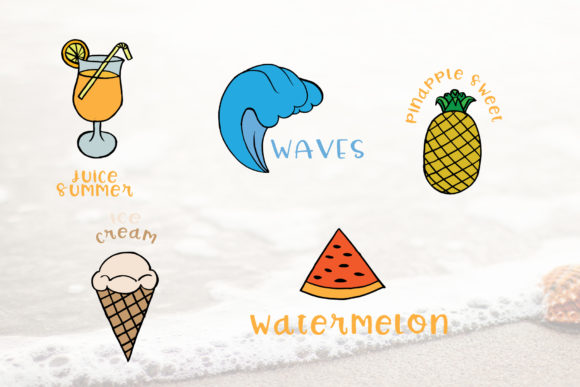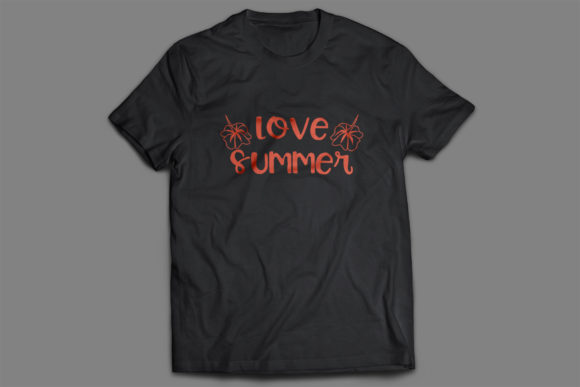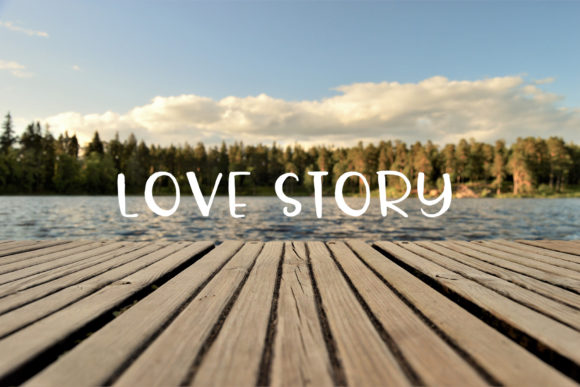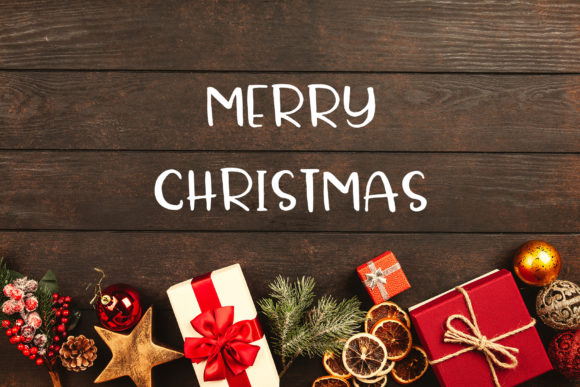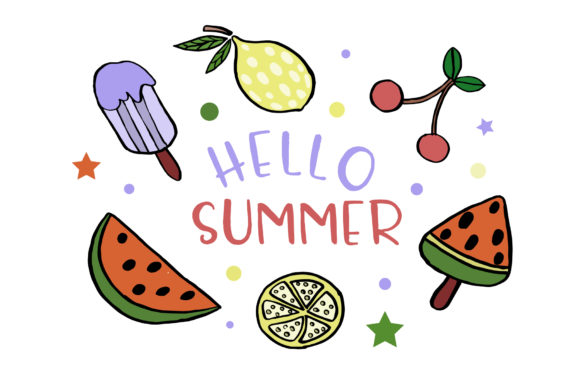
The Crying Font: A Sweet and Friendly Handwritten Delight
I still remember the design project that led me to discover the Crying Font. I was working on a whimsical children’s book, and my client requested a font that was both playful and elegant. As I scoured the internet for the perfect match, I stumbled upon this beautiful, handwritten font that instantly captured my heart. Its natural and unique style made it incredibly fitting for a wide range of designs, from crafty projects to sophisticated branding. In this article, I’ll share my experience with the Crying Font, its features, and how to make the most of it in various design platforms.
So, what makes the Crying Font so special? Here are a few things I love about it:
- ✨ Unique and friendly style: The Crying Font has a distinct, handwritten charm that sets it apart from other fonts.
- ✅ Highly versatile: It can be used for a wide range of projects, from kids’ books and crafts to branding and advertising.
- 💕 Emotional connection: The font’s natural, flowing lines evoke a sense of warmth and approachability.
Of course, no font is perfect, and the Crying Font has a few quirks:
- 🤔 Limited character set: While the font has a wide range of characters, it may not have every special character or glyph you need.
- ⚠️ Occasional inconsistencies: As with any handwritten font, there may be slight variations in letterforms and spacing.
The Story Behind the Crying Font
The Crying Font was designed by a talented typographer who wanted to create a font that captured the essence of handwritten writing. Inspired by the flowing lines and natural curves of handwritten text, the designer crafted a font that is both beautiful and approachable.
| Font Name | Crying Font |
| Author | Alit Design |
| What is the Crying Font best suited for? | The Crying Font is versatile and can be used for a wide range of projects, from kids’ books and crafts to branding and advertising. |
| Is the Crying Font suitable for body text? | While the Crying Font is beautiful, it’s best used for headings and titles. Its unique style may not be suitable for long blocks of body text. |